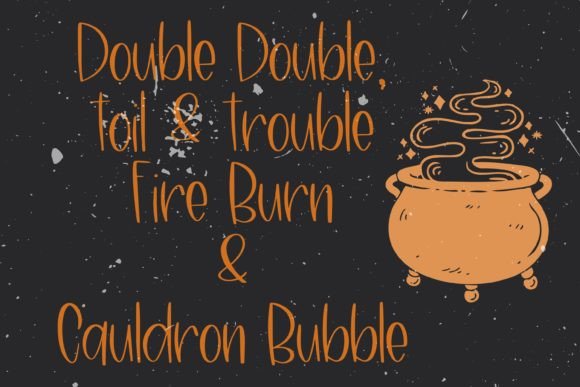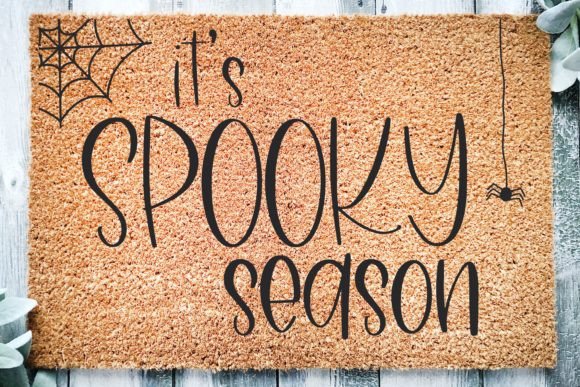
Witches’ Lane is a witchy handwritten sans-serif font. This fun and slightly spooky typeface is perfect for cute Halloween crafts, greeting cards, t-shirt designs, stickers, social media, and any craft or project.
Witches’ Lane Font